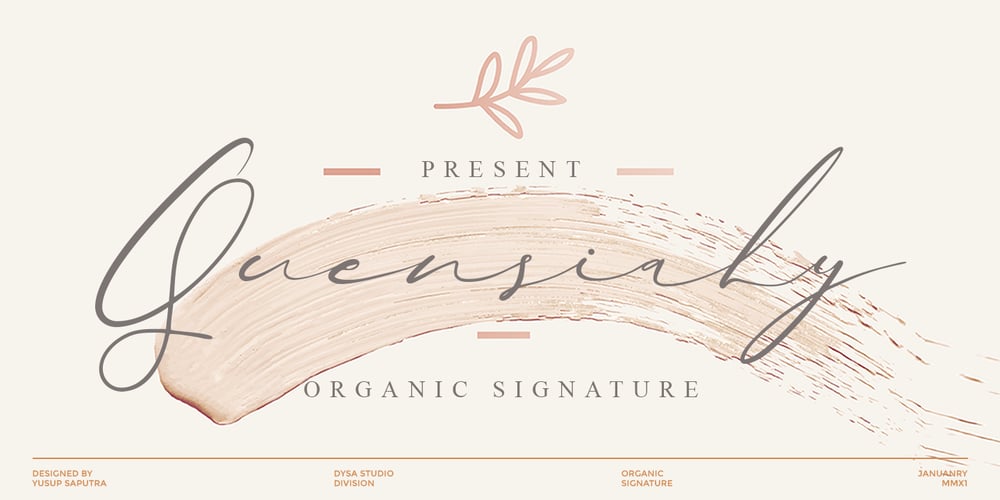
Quensialy Font Family was designed by Yusup Saputra and published by DYSA Studio. Quensialy contains 1 styles and family package options. Quensialy is a new organic siganture font. This another collection of script is perfect for your next branding project, excellent for your business. Quensialy have a natural edges, so this font gives an authentic handcrafted feel style.Quensialy is perfect choice for people looking for clean, modern, minimalist, elegant, beauty design styles. Suitable for almost any graphic designs such as logo, branding materials, business cards, gift cards, t-shirt, cover, thumbnail, print, poster, photography, quotes .etc